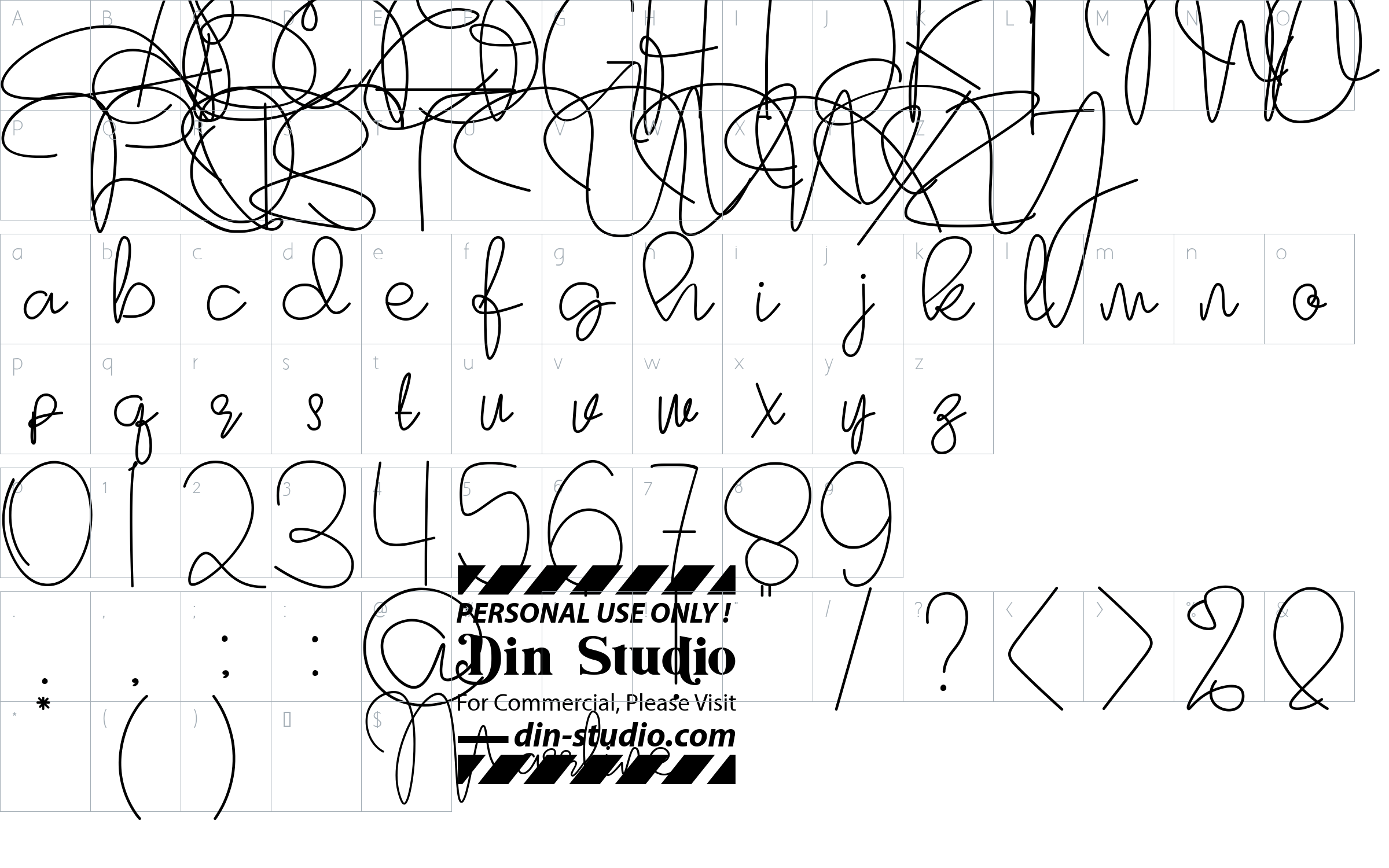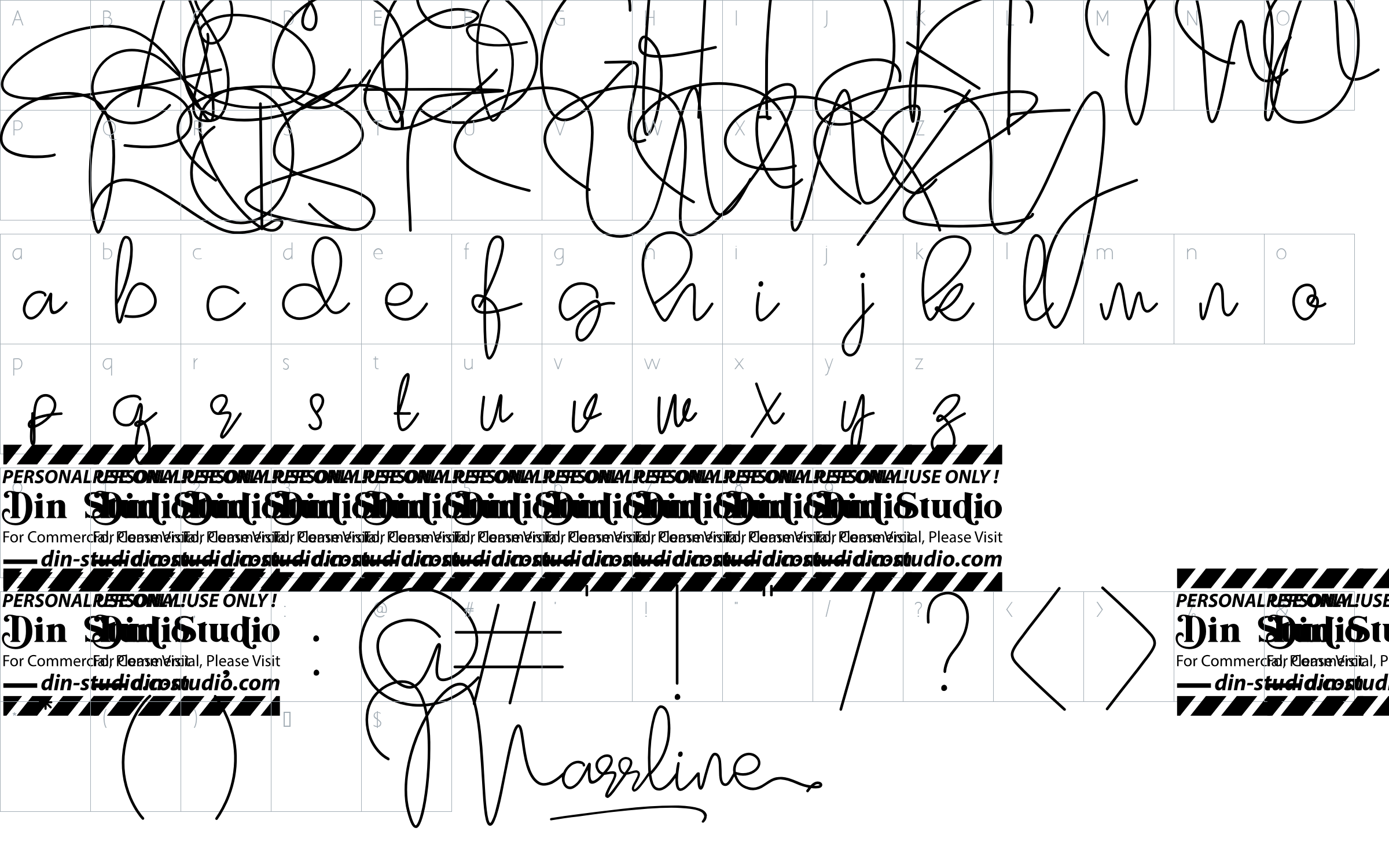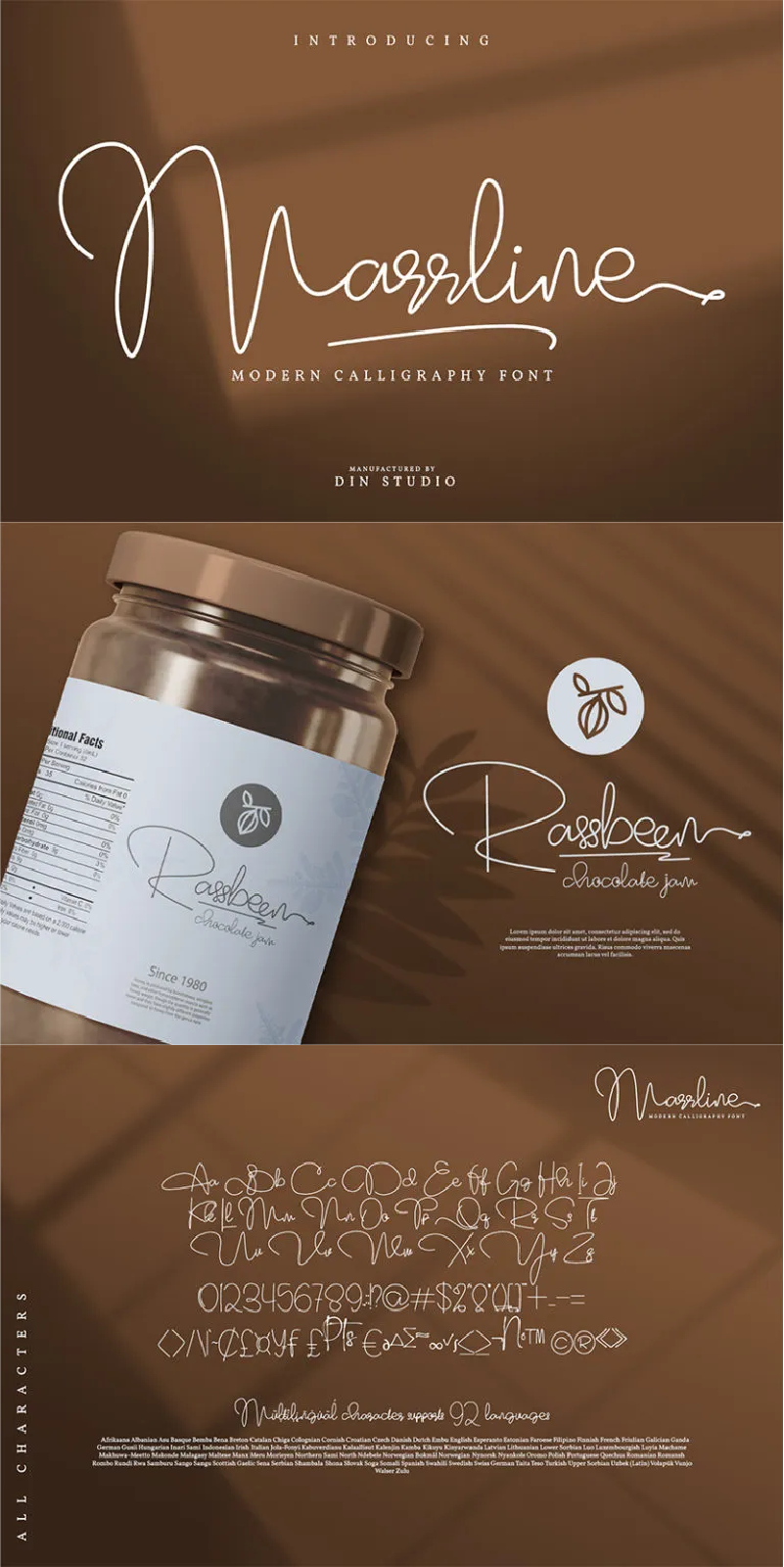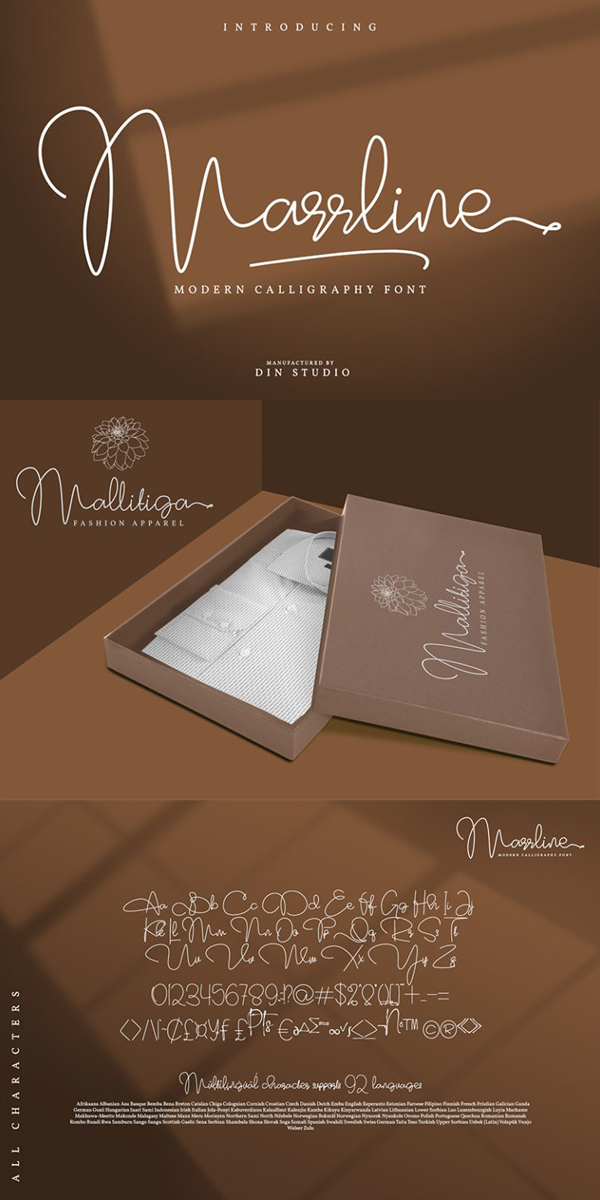
Marrline Font
About Marrline
Marrline is a modern calligraphy font. It brings a beautiful and attractive typeface. Made for any professional project branding. It is the best for logos, branding, wedding designs, watermark, photography, social media post, book cover, label, quotes, or anything that need handwriting taste. See the previews above to get some inspiration on how you can use them.
– Stylistic Set
– Beautiful Ligatures
– Swashes